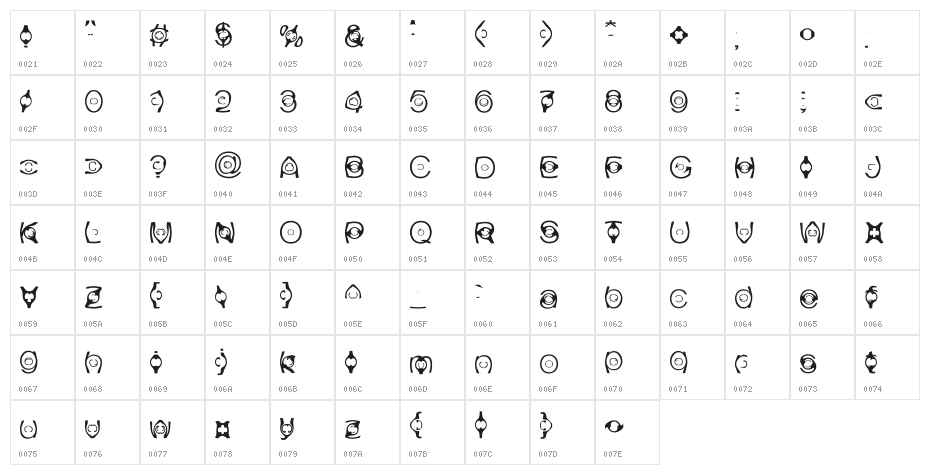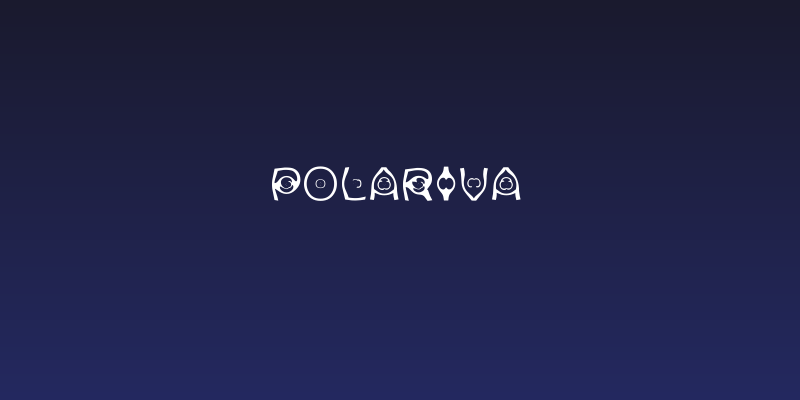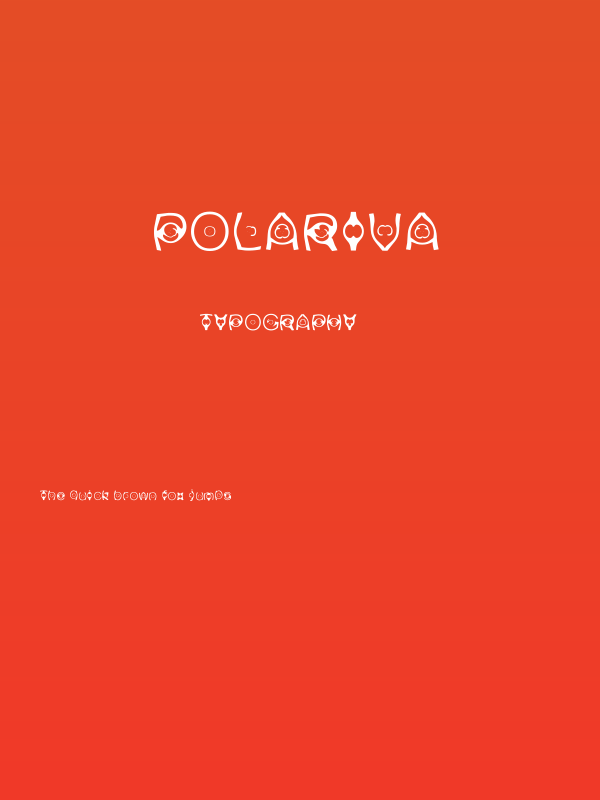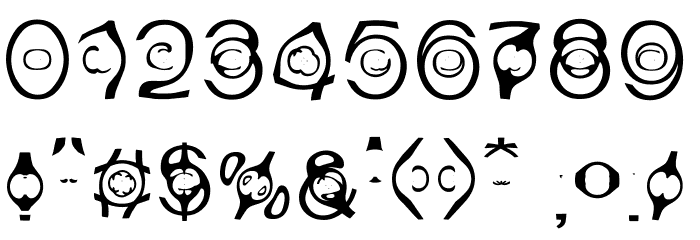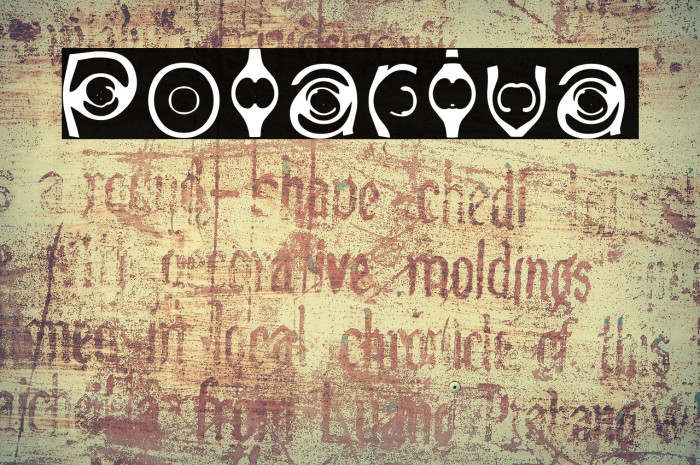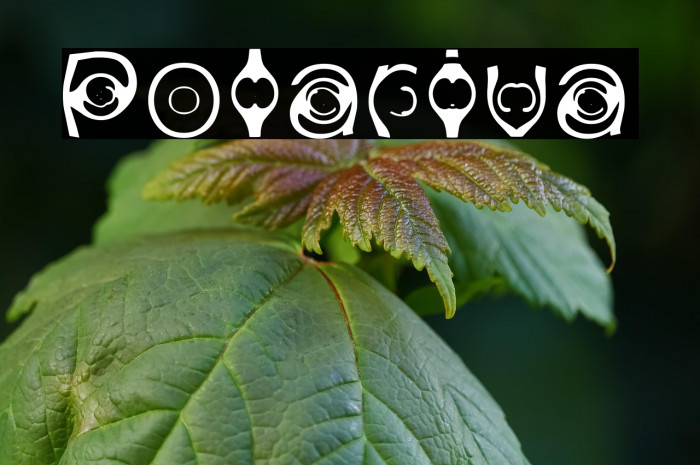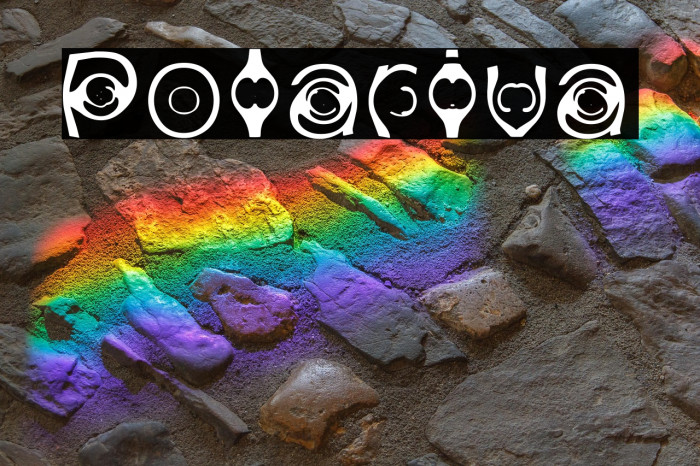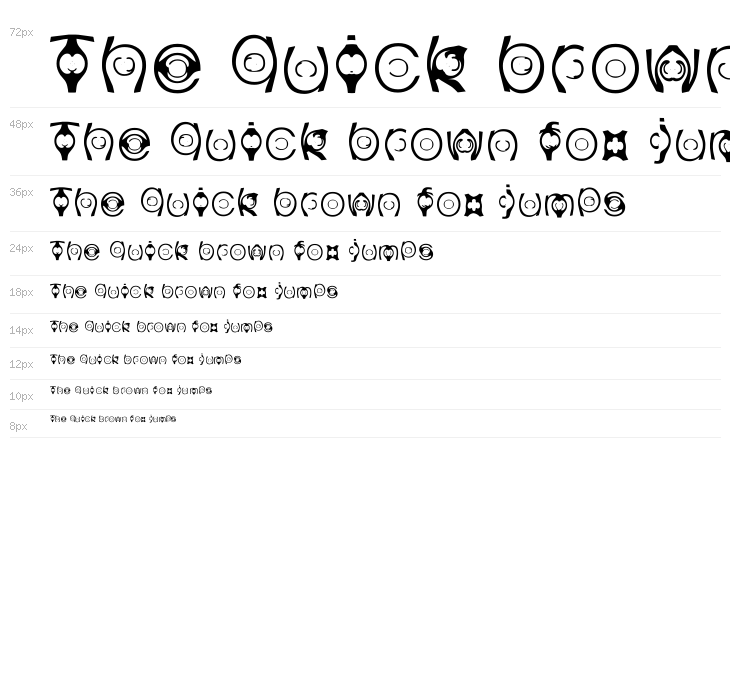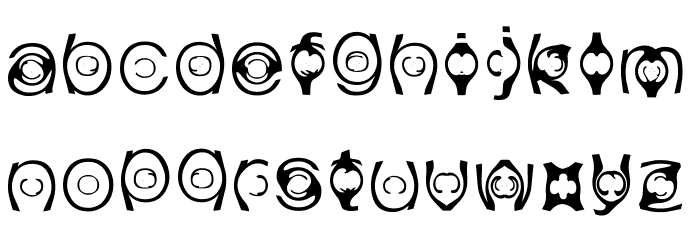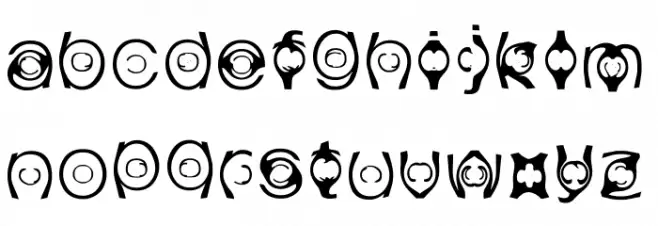
Polariva Font
Polariva Description
This font exhibits a highly decorative and playful style, characterized by its unique and whimsical letterforms. Each character is designed with a bold, artistic flair, incorporating circular and organic shapes that create a sense of movement and fun. The letters are filled with intricate details, making them stand out as a display typeface. The font's distinctiveness lies in its ability to convey a sense of creativity and imagination, making it ideal for projects that require a touch of uniqueness and visual interest. Its bold strokes and artistic elements make it suitable for eye-catching designs.
| Overall Style | Decorative |
| Use Case | Headlines, Logos |
| Proposed Projects | Ideal for creative projects such as posters, children's books, playful branding, and artistic invitations. |